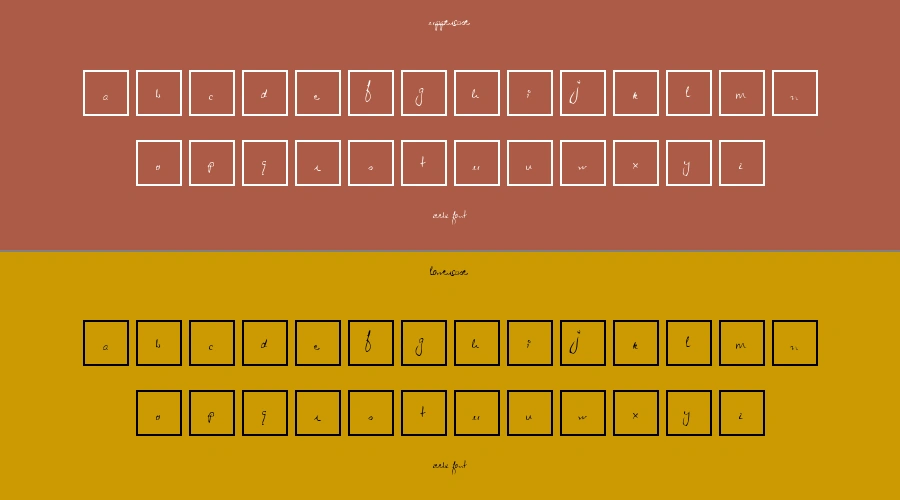
About Zeebz Font
Designed with precision, Zeebz Font merges graceful curves with tradition in every character. This versatility makes it particularly effective for exhibition design, where flexibility and cultural relevance directly impact communication quality. Each letterform demonstrates meticulous craftsmanship.
Technical excellence shines through elements like natural flow and language support, enhancing typographic versatility. In product names settings, Zeebz Font proves its worth through superior purchase influence. The thoughtful execution of corner treatment and emotional resonance ensures professional results.
Zeebz Font |